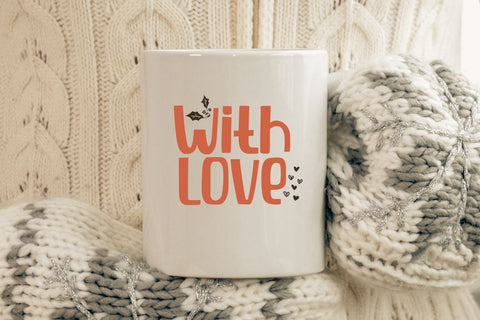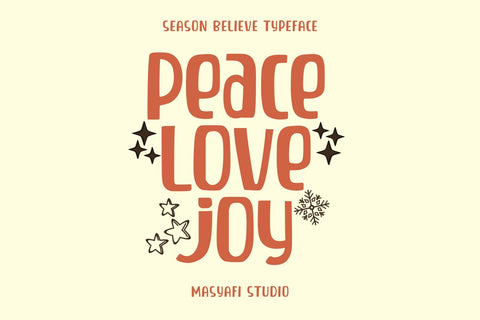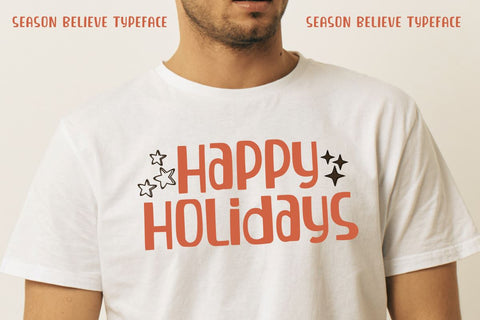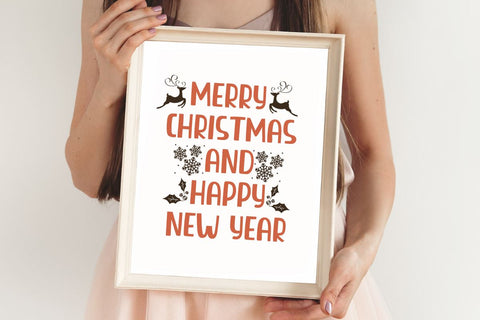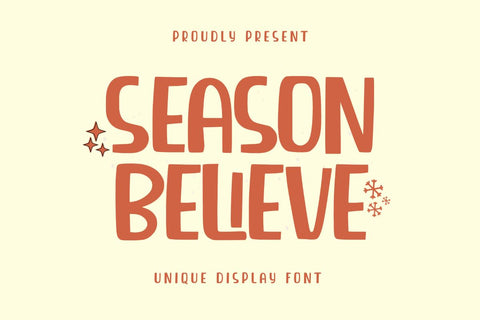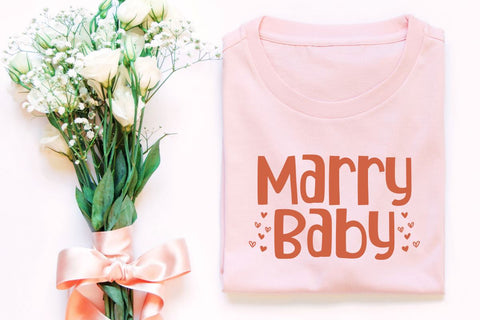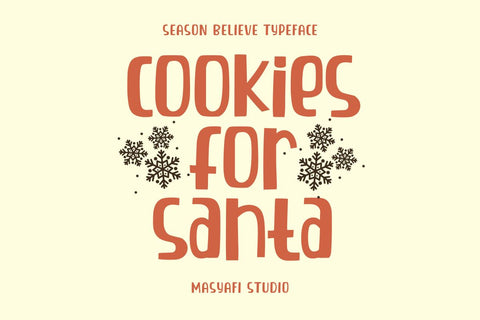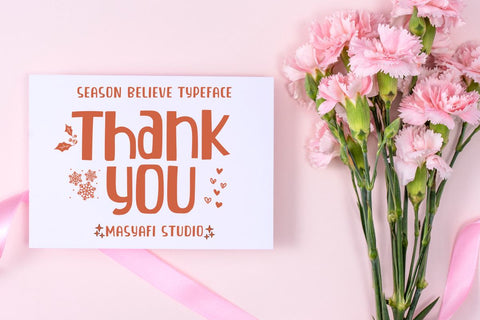
Season Believe - A Unique Display Font
Hi, Introducing Season Believe - A Unique Display Font
A Unique Display Font with a unique style. This font is cool for mugs, t-shirts, quotes, tote bags, tumblers, greeting cards, decorations, etc